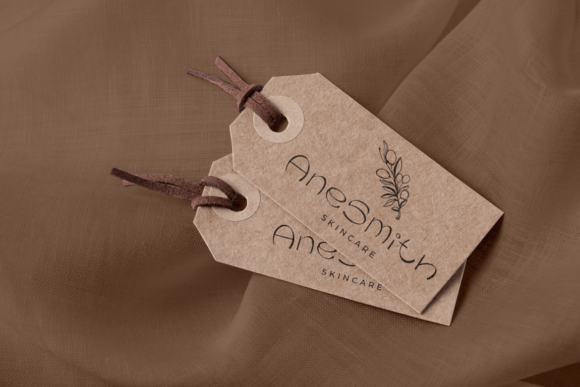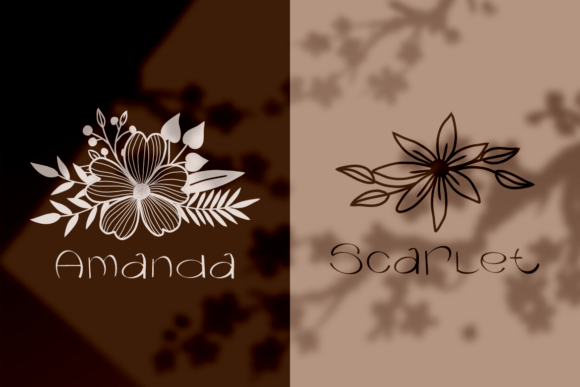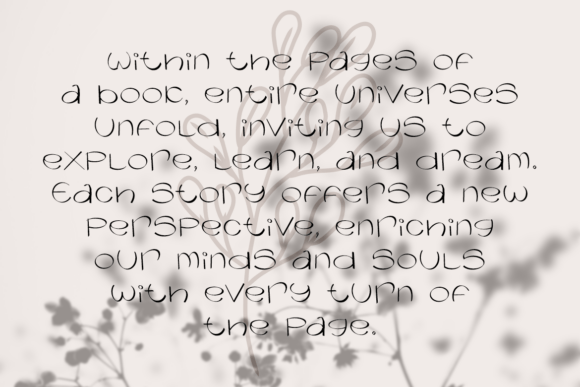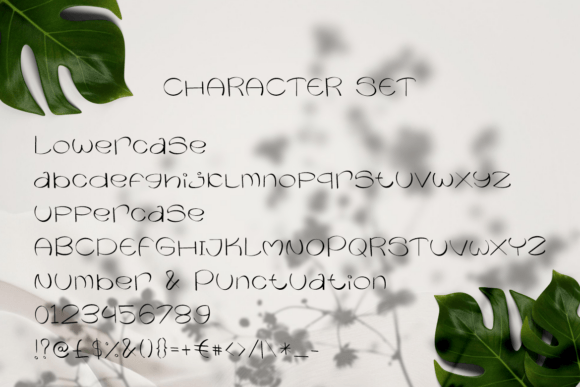
Introducing Graphora – The Elegant Sans Display Font for Sophisticated Designs
In the world of typography, few fonts manage to strike a balance between elegance and approachability. Graphora Font, however, achieves this delicate balance with grace. This refined typeface is designed to bring a touch of romance and sophistication to any design project, making it an impeccable choice for those who aim to infuse their branding or creative endeavors with a sense of luxury and beauty.
The Essence of Graphora
Graphora is characterized by its monoline, hand-drawn qualities that exude the charm of handwriting while maintaining clean, rounded lines. This unique combination gives Graphora a modern and approachable feel, making it versatile enough to be used across various applications. From business branding to crafting, and from logos to book covers, Graphora adds an air of sophistication that can elevate any work from ordinary to extraordinary.
Design and Features
Each letter in Graphora is meticulously crafted to harmonize with its companions, creating a seamless flow of text that is as pleasing to the eye as it is impactful. The font’s design ensures that it can be used to create visually appealing text for a wide range of projects, including:
- Logos: Graphora’s elegant and modern design makes it an excellent choice for logos that require a touch of sophistication.
- Invitation Cards: Add a touch of luxury and beauty to your invitation cards with Graphora’s refined typography.
- Posters: Create eye-catching posters with Graphora’s clean lines and modern appeal.
- Book Covers: Graphora’s versatility and elegance make it suitable for book covers, adding a professional touch to any publication.
Why Choose Graphora?
Graphora is not just a font; it’s an experience. Here are a few reasons why designers and crafters should consider Graphora for their next project:
- Sophistication: Graphora brings a level of sophistication and elegance to any design, making it perfect for projects that require a touch of luxury.
- Versatility: Its monoline and hand-drawn qualities make Graphora versatile enough to be used across various applications, from business branding to crafting.
- Approachability: Despite its elegant design, Graphora maintains a modern and approachable feel, making it suitable for a wide range of audiences.
- Impact: Graphora’s unique design ensures that any text using this font is not only visually appealing but also impactful.
Using Graphora in Your Designs
Imagine your next project adorned with Graphora’s elegant typography. Whether you’re a designer looking to elevate your branding or a crafter seeking to add a touch of sophistication to your handmade goods, Graphora is the perfect choice. Here are a few tips on how to make the most out of Graphora:
- Pair with Complementary Fonts: Graphora can be paired with other fonts to create a unique and visually appealing design. Experiment with different combinations to find the perfect match.
- Experiment with Colors: Graphora’s elegant design works well with a variety of colors. Don’t be afraid to experiment with different color schemes to find the one that best suits your project.
- Play with Sizes: Graphora’s versatility makes it suitable for use in various sizes. Play with different font sizes to create visual hierarchy and add depth to your design.
Graphora Font is a refined typeface that brings a touch of romance and sophistication to any design project. Its monoline, hand-drawn qualities make it versatile enough to be used across various applications, while its elegant design ensures that any text using this font is impactful and visually appealing. Whether you’re a designer or a crafter, Graphora is the perfect choice for those seeking to infuse their work with a sense of luxury and beauty.
With Graphora, you don’t just choose a font; you choose an experience. Elevate your designs with Graphora’s elegant sans display font and make a lasting impression on your audience.